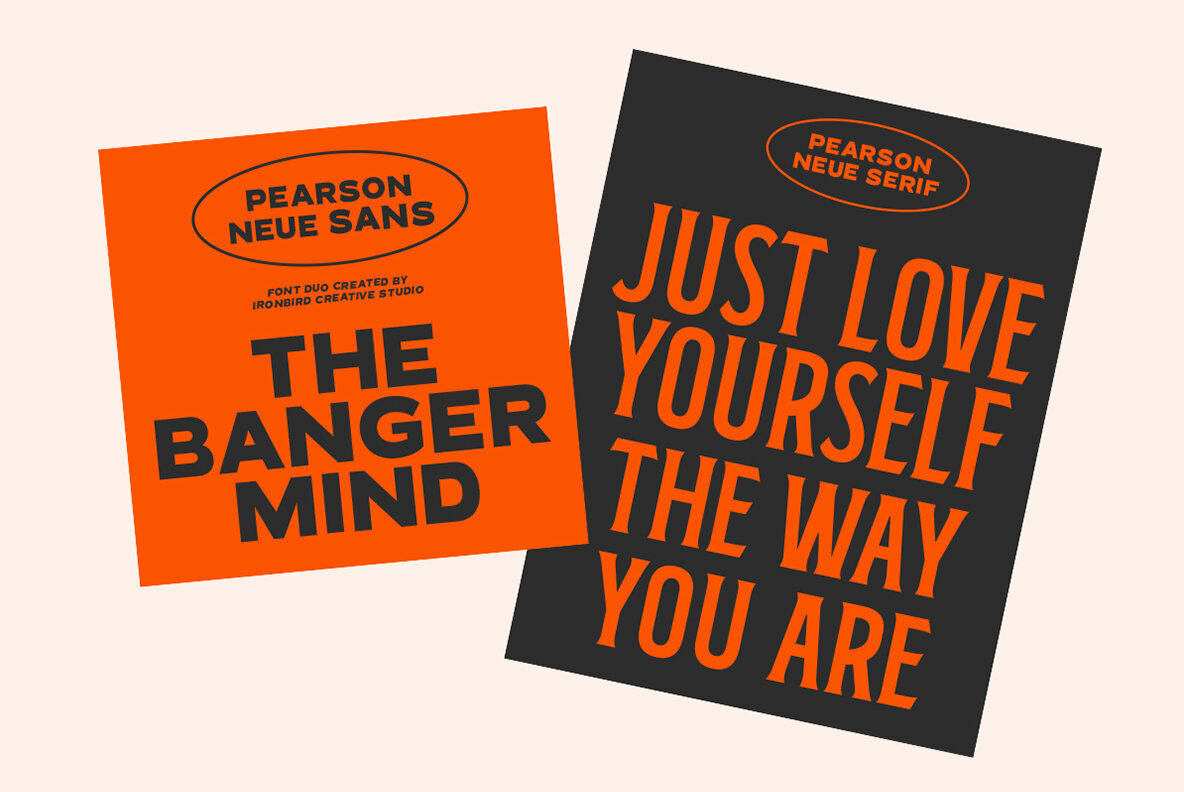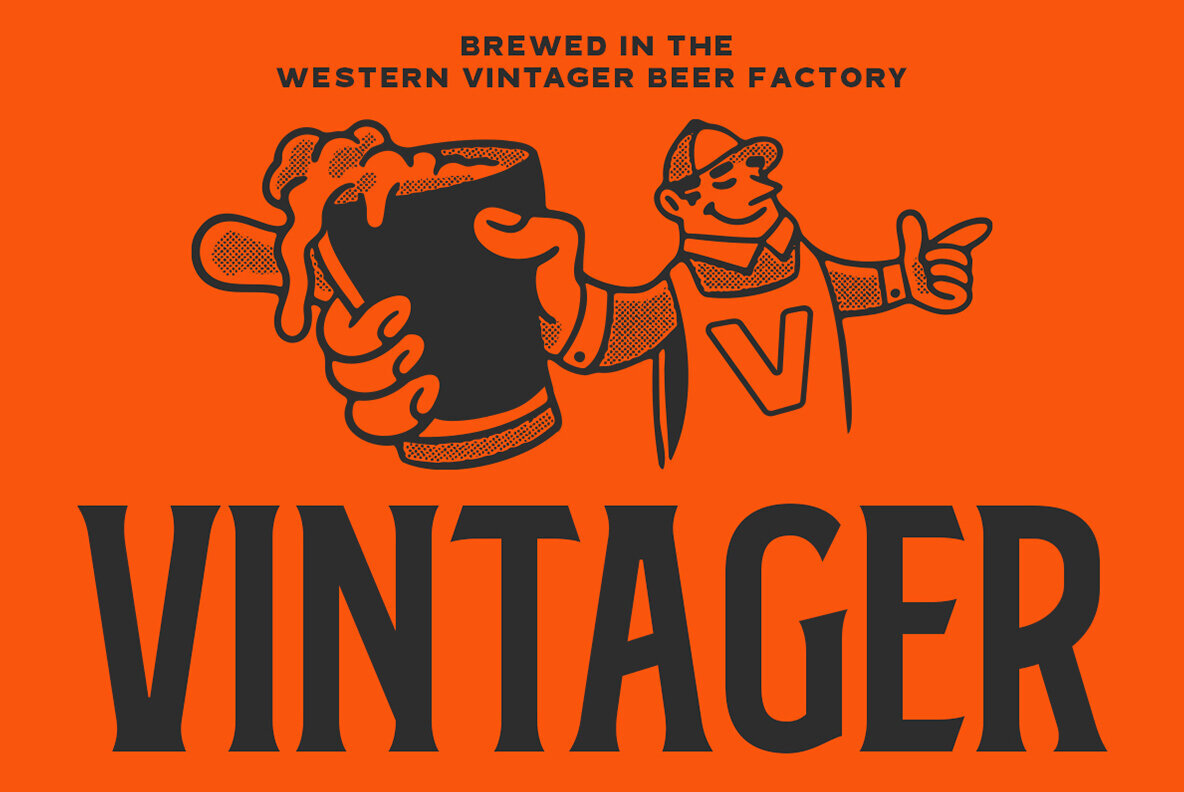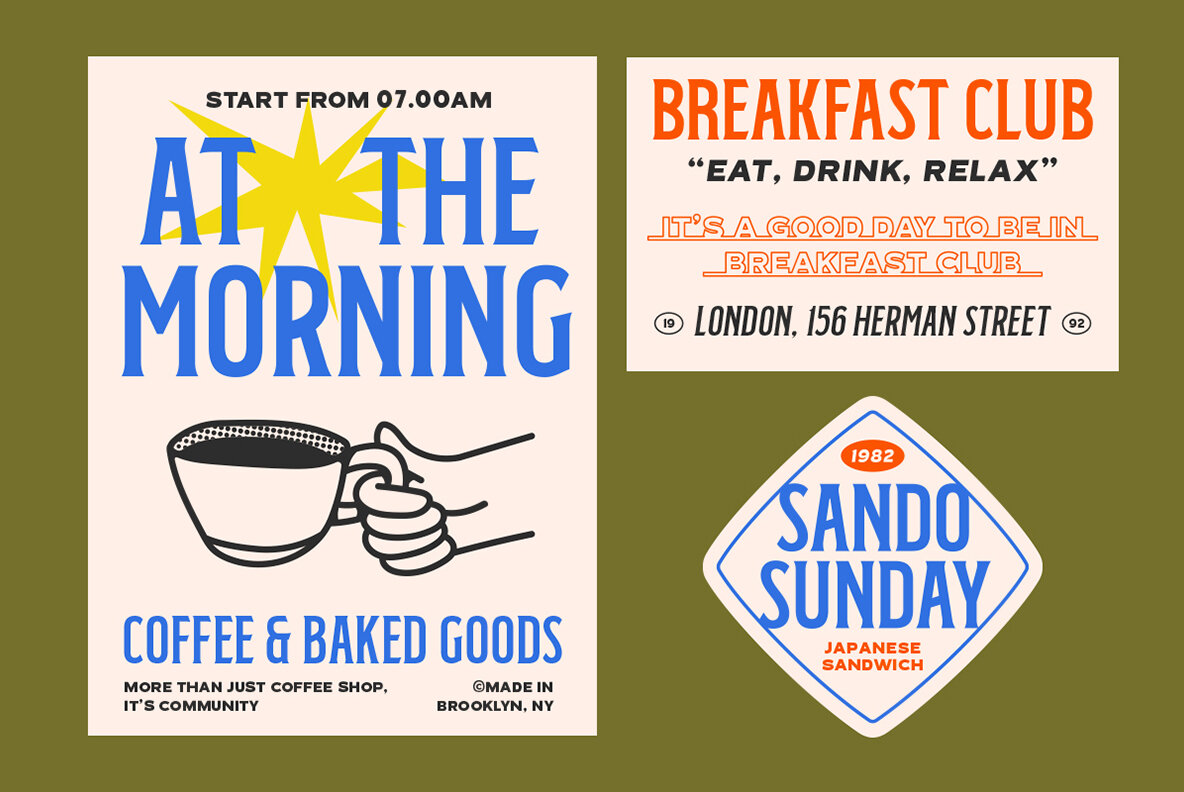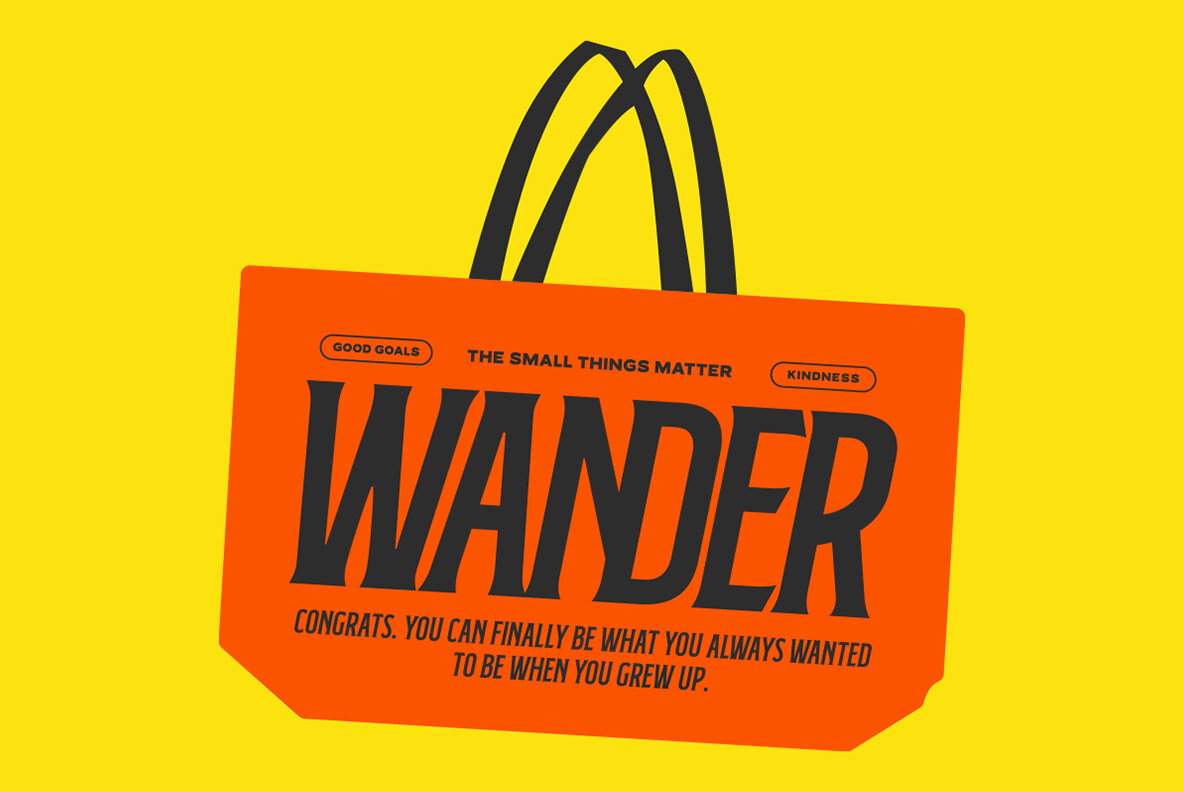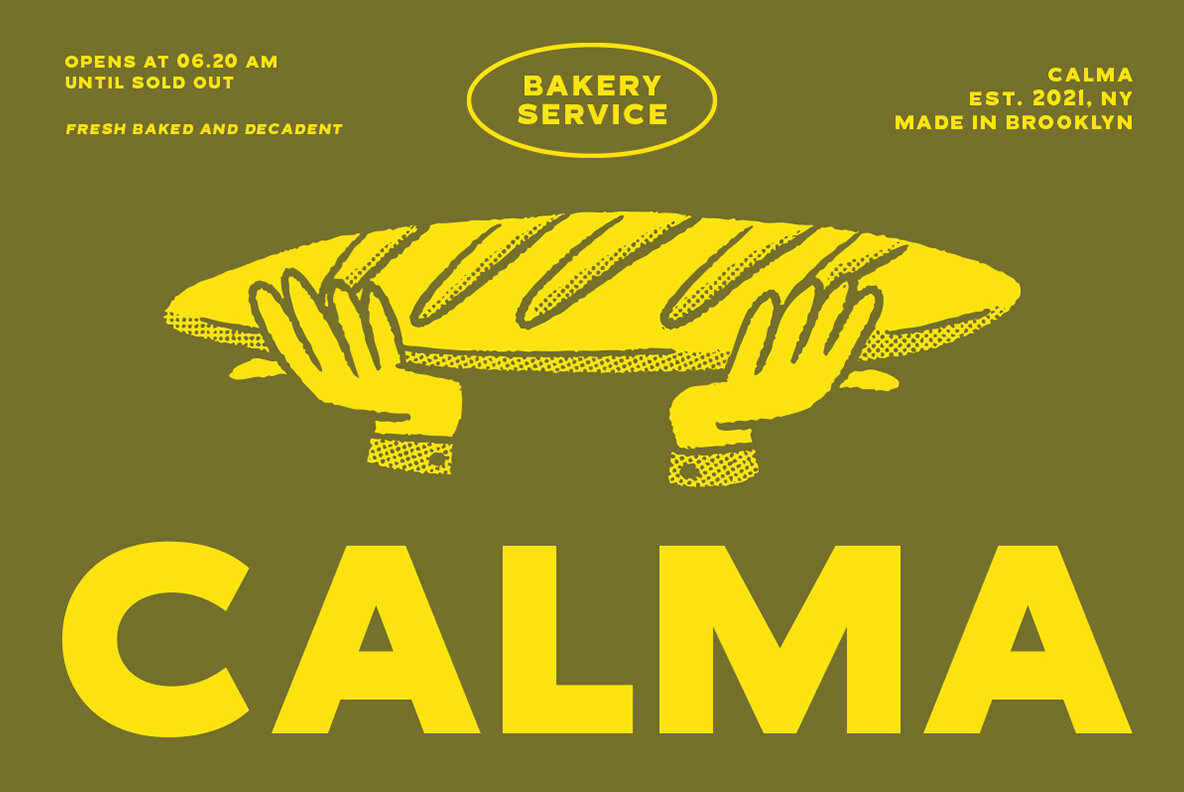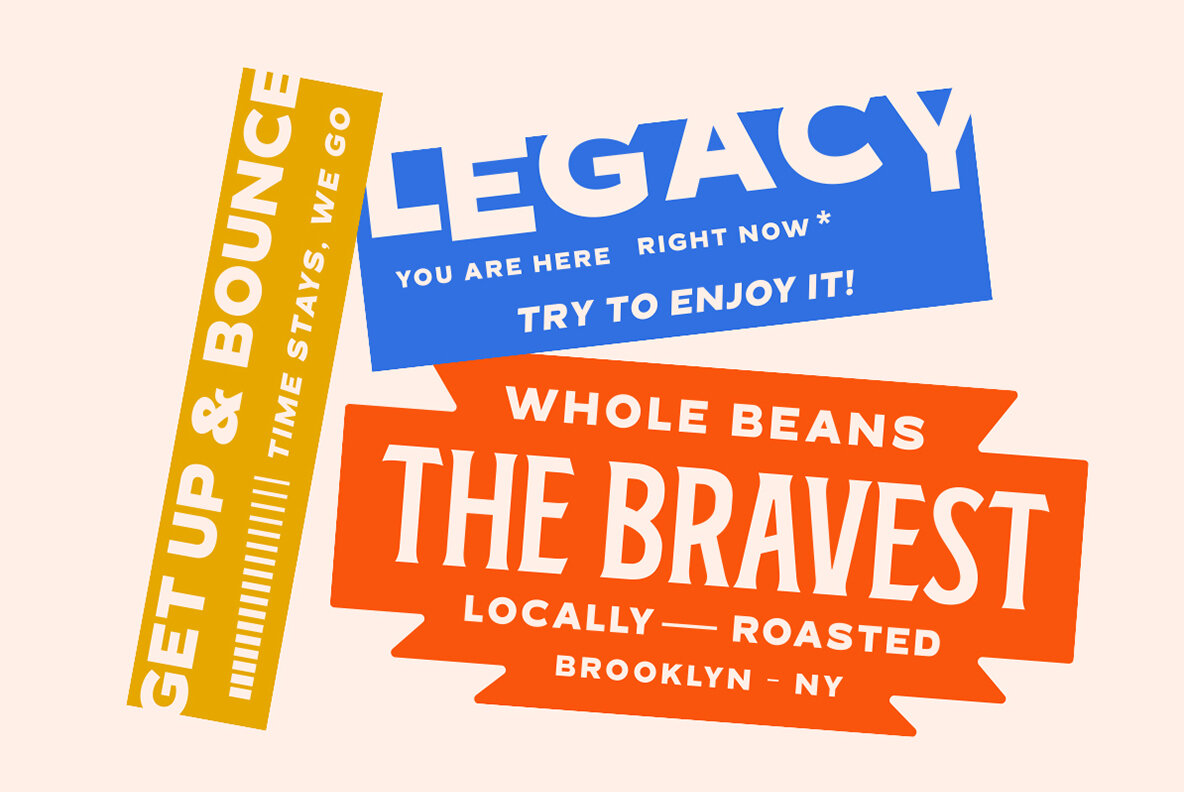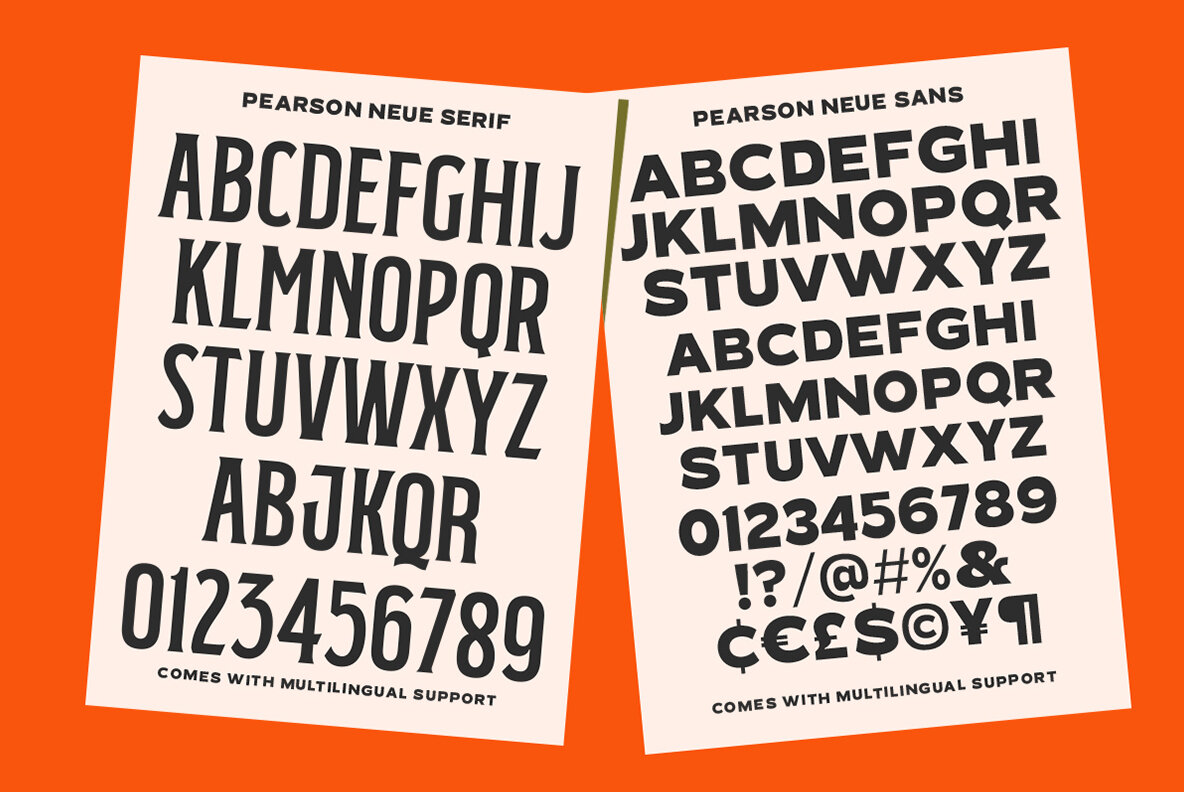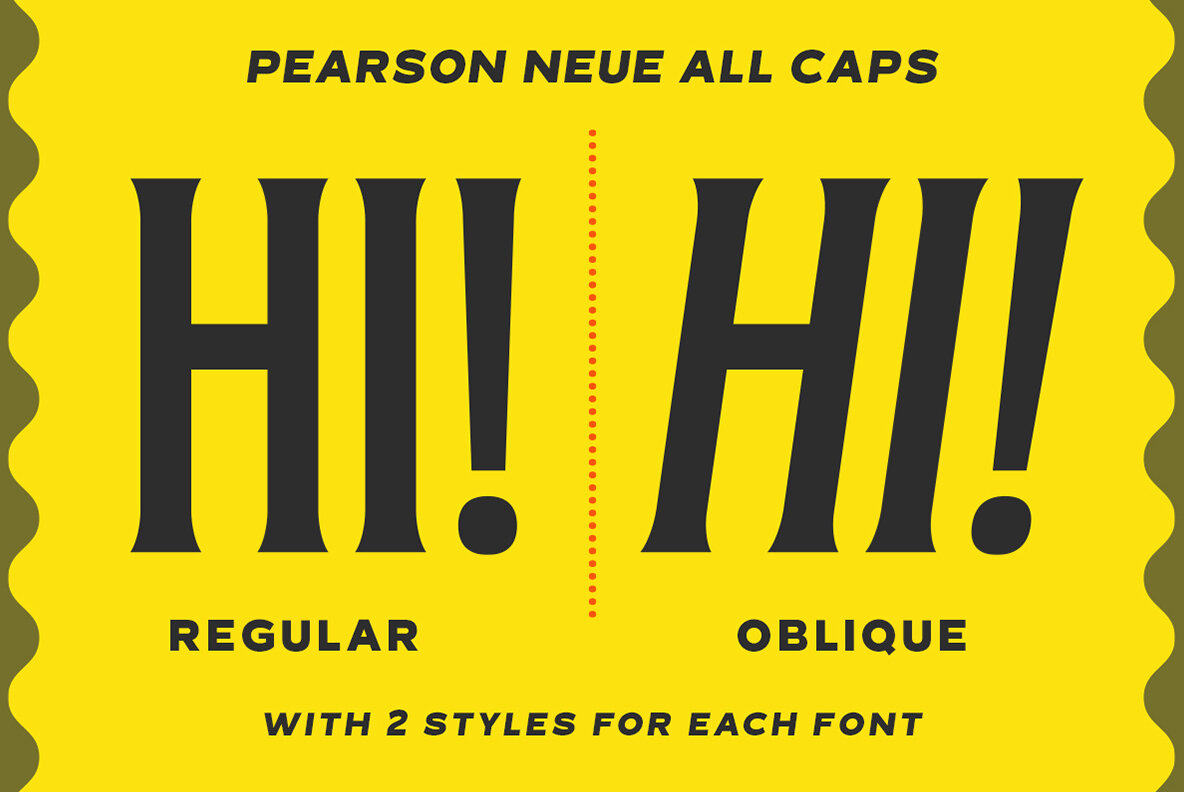
Pearson Neue Font
Pearson Neue is a versatile serif typeface that builds upon the original Pearson font, incorporating a bold all-caps design. This typeface offers a nostalgic touch, combining vintage, classic, and old-school aesthetics with a hint of handmade charm. It includes two distinct styles: Regular and Oblique, providing flexibility in your design projects.
Ideal for various graphic design applications, Pearson Neue excels in creating impactful branding materials, eye-catching t-shirts, distinctive logos, compelling posters, memorable quotes, and appealing packaging designs. Its condensed serif and expanded sans serif elements blend seamlessly, making it a robust choice for enhancing visual identity across diverse mediums.